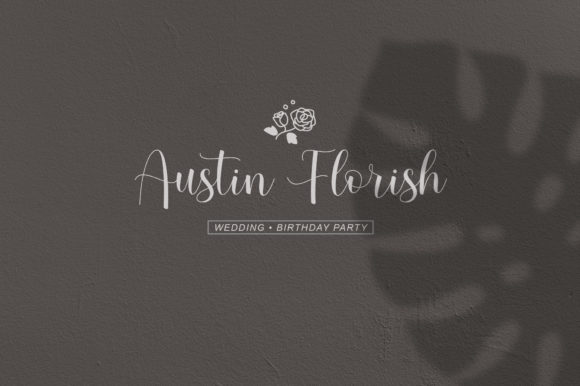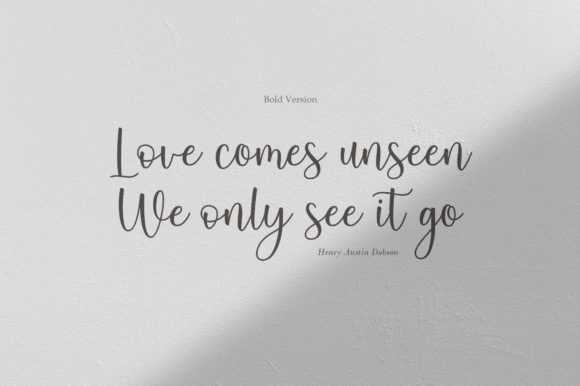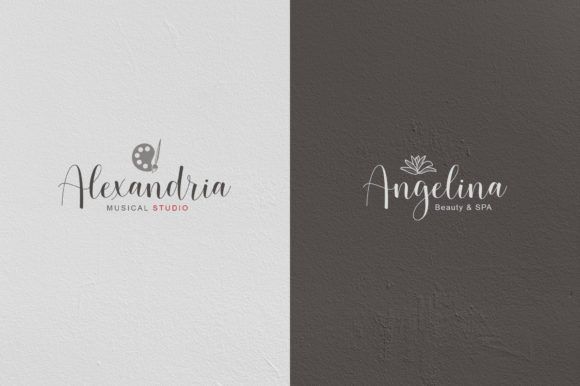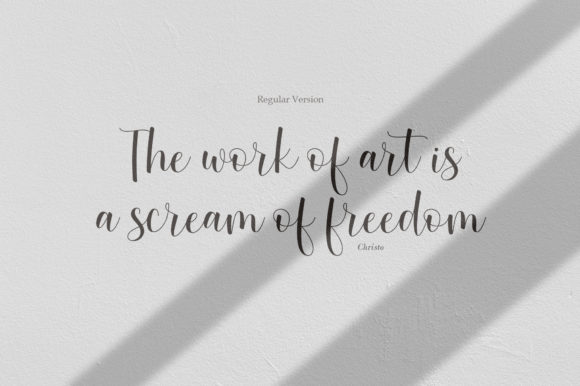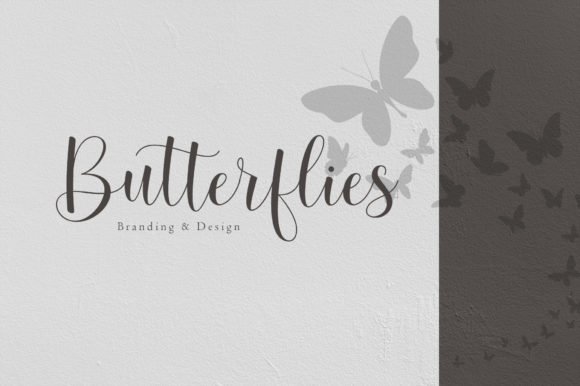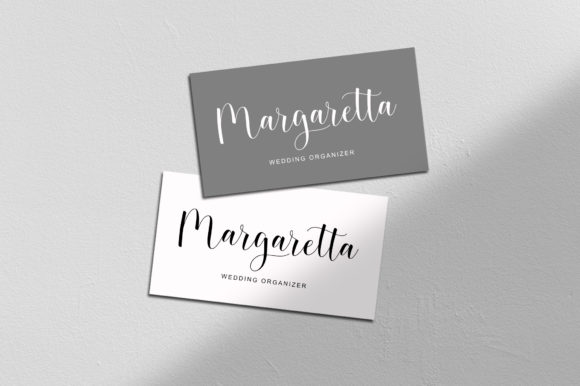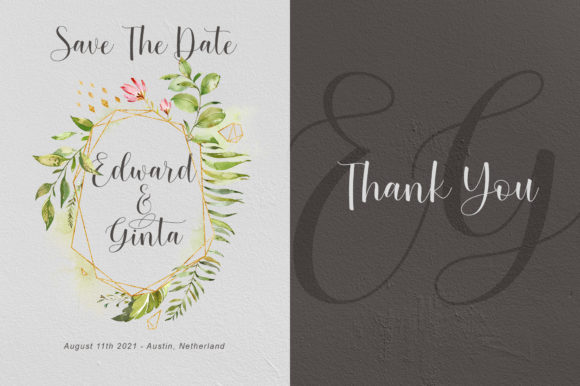
HomeScript FontsBetterday Font Script Fonts Betterday Font FacebookXPinterestWhatsApp Betterday Font Poster 2 Betterday Font Poster 3 Betterday Font Poster 4 Betterday Font Poster 5 Betterday Font Poster 6 Betterday Font Poster 7 Betterday Font Poster 8 About Betterday Font Betterday is a gorgeous script font that updates classic calligraphy with a sweet twist! DOWNLOAD ON CREATIVE FABRICAThis font is sold and delivered by Creative Fabrica. Font Canyon may earn a commission if you buy through this link. People also explored Minimalist Font Braendeh Font Salt House Rolanda Story Font Buffalo Herder Font Fall / Autumn / Thanksgiving Sunflower Sign Mock Up, Styled Pleaster Font Thanksgiving Pilgrim Font Black Line Font 333 0 TagsBetterday Font Previous articleSibertha FontNext articleBridgers Brush Font LEAVE A REPLY Cancel reply Comment: Please enter your comment! Name:* Please enter your name here Email:* You have entered an incorrect email address! Please enter your email address here Website: Save my name, email, and website in this browser for the next time I comment. Personal Use Free Sileighty Personal Use Free Read more about this font Hillgates Personal Use Free Read more about this font Milda Personal Use Free Read more about this font Samureix Personal Use Free Read more about this font BLOG Best Fonts for T-Shirt Design – Top 2025 Picks In 2025, t-shirt design has become more than just fashion—it's a form of self-expression. Whether you're... The 10 Best Handwriting Fonts to Add Personality to Your Designs Free Fonts Risk: Why Free Fonts Can Be Dangerous for Designers Transform Your Website: Elevate Your Typography with 7 Best Web Font Generators